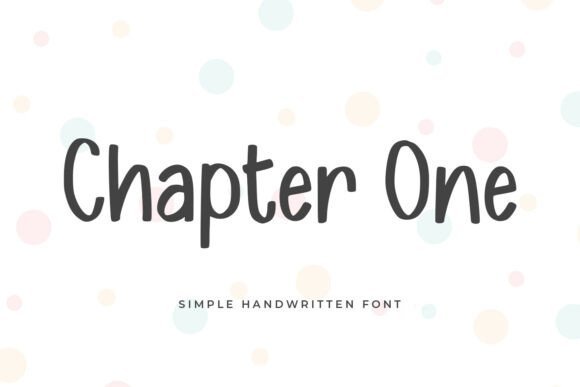
The Perfect Handwritten Companion for Your Designs
Have you ever found yourself staring at a blank canvas, searching for the perfect font to bring your creative vision to life? The excitement of a new project is always a thrill, but sometimes it’s the smallest details that can make all the difference. For designers, the right font can be the key to unlocking a unique and captivating design.
Enter Chapter One Font, a sweet and friendly handwritten font that’s sure to become your new go-to companion. Its natural and unique style makes it incredibly versatile, allowing you to use it in a wide range of designs, from wedding invitations to children’s book covers. Whether you’re a seasoned pro or just starting out, Chapter One Font is the perfect addition to your design arsenal.
- Unique Characteristics: Chapter One Font features a distinctive, modern design with a strong emphasis on readability, making it suitable for use in body text, headings, and titles.
Chapter One Font Review
Chapter One Font is a beautifully crafted typeface that’s perfect for projects requiring a classic, elegant look. ✨ I love the way it effortlessly conveys sophistication and refinement. The font’s rounded edges and subtle curves make it incredibly versatile and easy to read.
Here are some of the features that make Chapter One Font stand out:
- ✨ Elegant and refined look that’s perfect for high-end projects
- ✨ Highly legible even at small font sizes
- ✨ Includes a wide range of languages and character sets
- ✨ Suitable for use in various contexts, including body text, headings, and titles
While Chapter One Font excels in many areas, there are a few limitations to consider:
- ⚠️ The font’s classic look may not be ideal for projects requiring a more modern or edgy aesthetic
- ⚠️ Some users may find the font’s rounded edges too soft or cursive-like in certain contexts
Overall, I’d say that Chapter One Font is a solid choice for designers seeking a high-quality, elegant typeface. While it may not be the best fit for every project, it’s definitely worth considering for those requiring a classic, sophisticated look.
Tips for Getting the Most Out of Chapter One Font
For optimal results, use Chapter One Font in headings and titles to add a touch of elegance and sophistication to your design. Additionally, pair it with a clean and simple sans-serif font for body text to create a visually appealing contrast.
Chapter One Font is ideal for use in:
– Branding and logo design
– Editorial and publishing projects
– High-end marketing materials
– Luxury product packaging
Alternatives to Chapter One Font
Playfair Display is a luxurious, high-end serif font ideal for creating a sophisticated and elegant atmosphere. It features beautiful swashes and elegant curves that make it perfect for use in titles, headings, and luxury branding. When to use: High-end branding, luxury products, and formal invitations. Comparison to Chapter One Font: While both fonts are elegant, Playfair Display has a more refined and sophisticated feel, making it a better choice for high-end branding.
Great Vibes is a beautiful, modern script font that exudes a sense of elegance and sophistication. It features a flowing, cursive design that makes it perfect for use in titles, headings, and creative projects. When to use: Creative projects, invitations, and branding for creative businesses. Comparison to Chapter One Font: While both fonts are elegant, Great Vibes has a more modern and flowing feel, making it a better choice for creative projects.